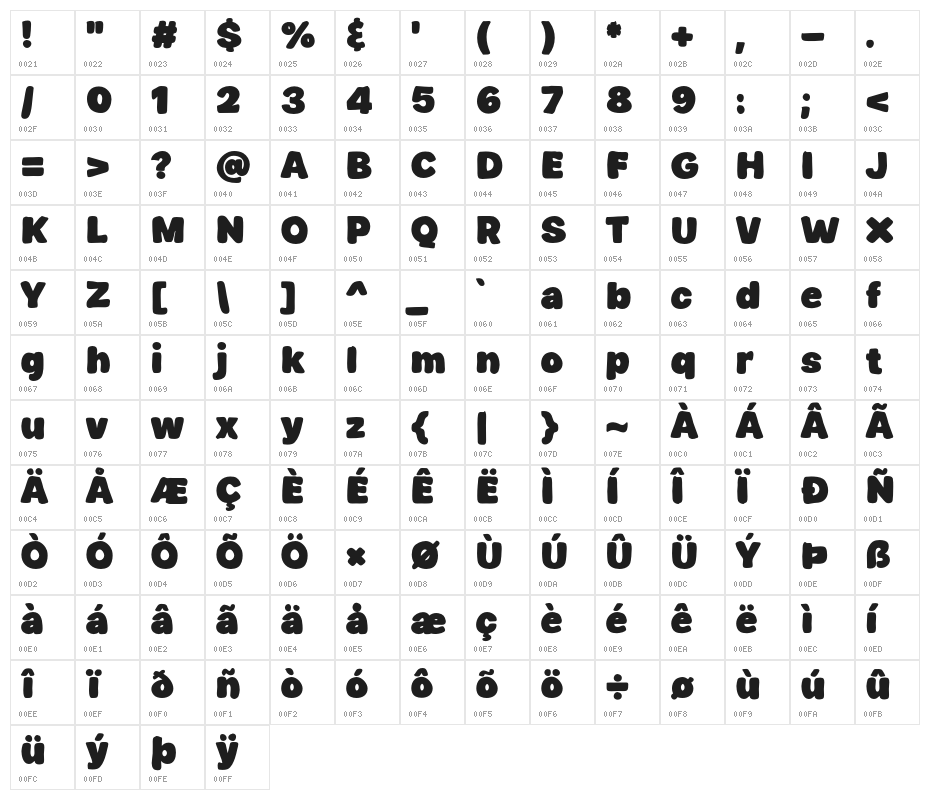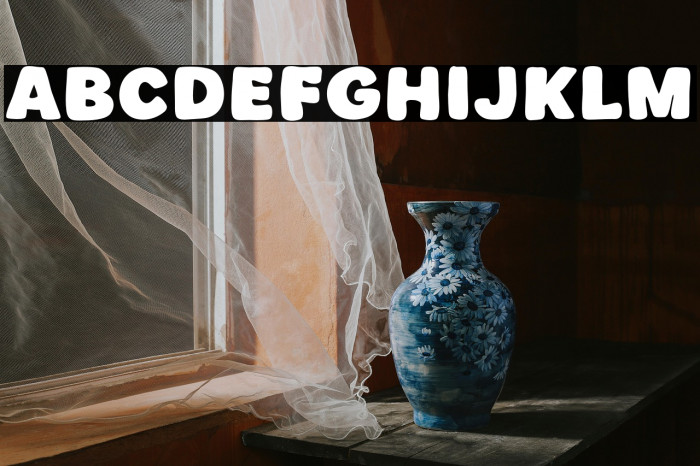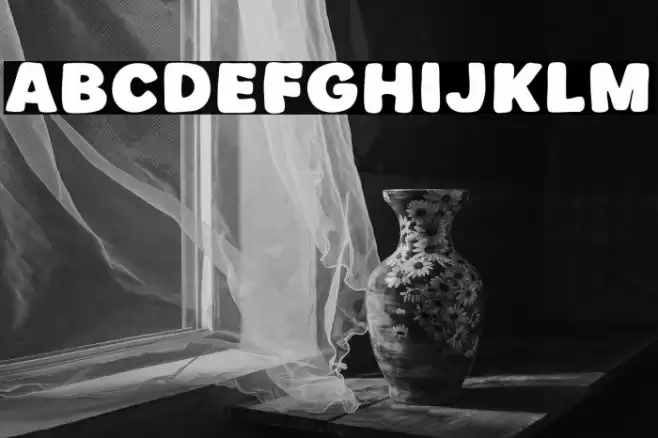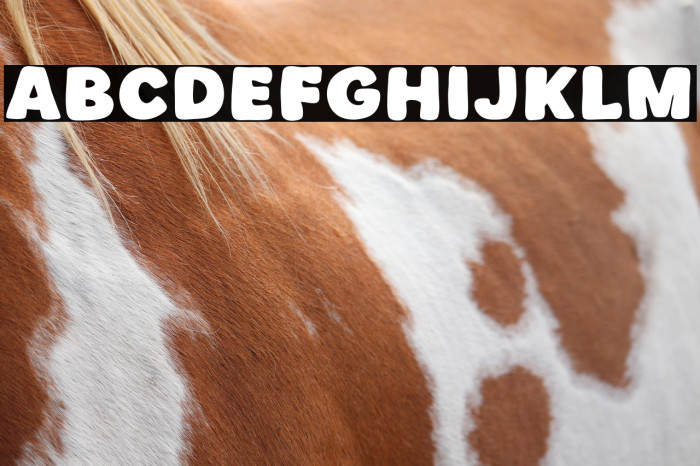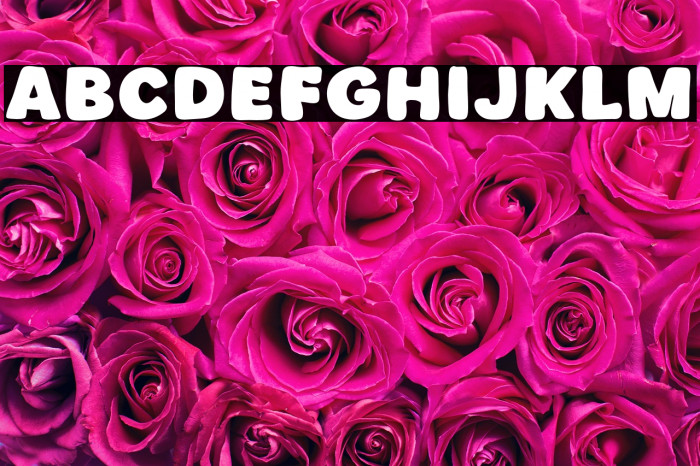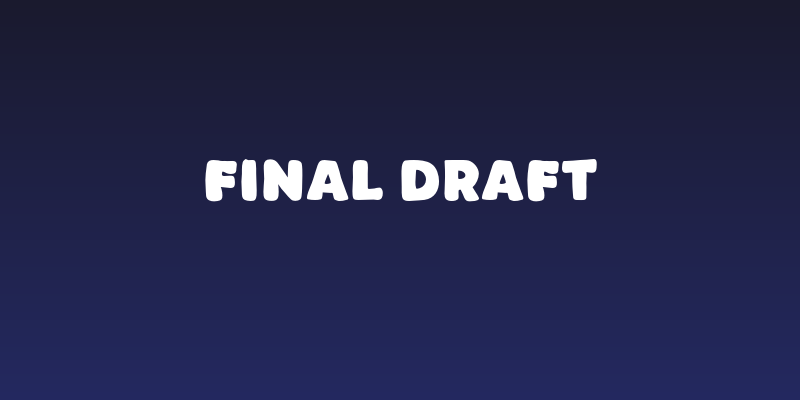
Final Draft Font
Final Draft Description
This font features bold, rounded characters with a playful and friendly appearance. The letters are uniformly thick, providing a consistent and solid look across both uppercase and lowercase alphabets. The numbers and special characters maintain the same bold style, ensuring a cohesive design throughout. The rounded edges and thick strokes give it a soft, approachable feel, making it ideal for projects that require a warm and inviting touch.
| Proposed Projects | Ideal for children's books, playful branding, posters, and casual invitations. |